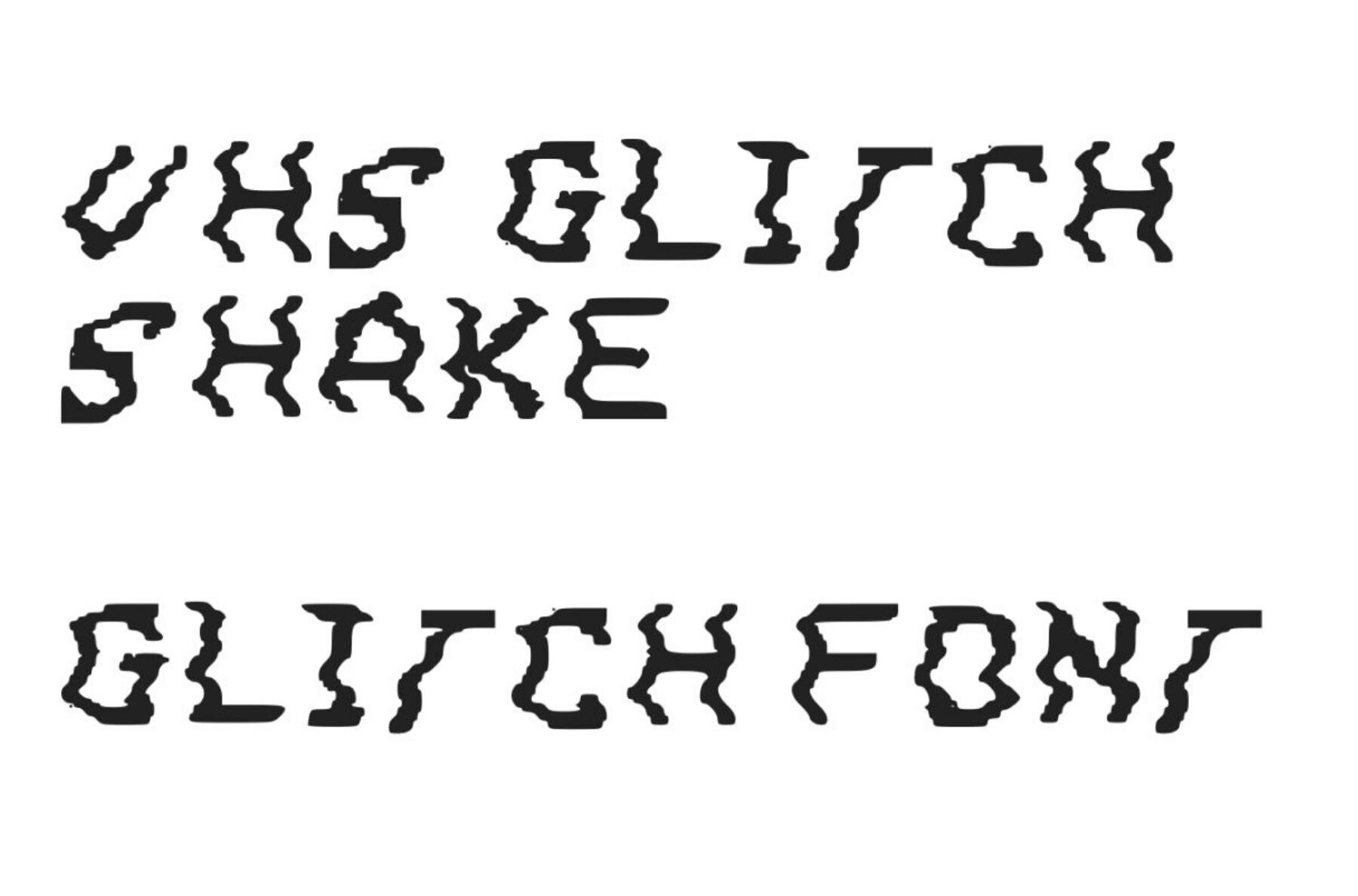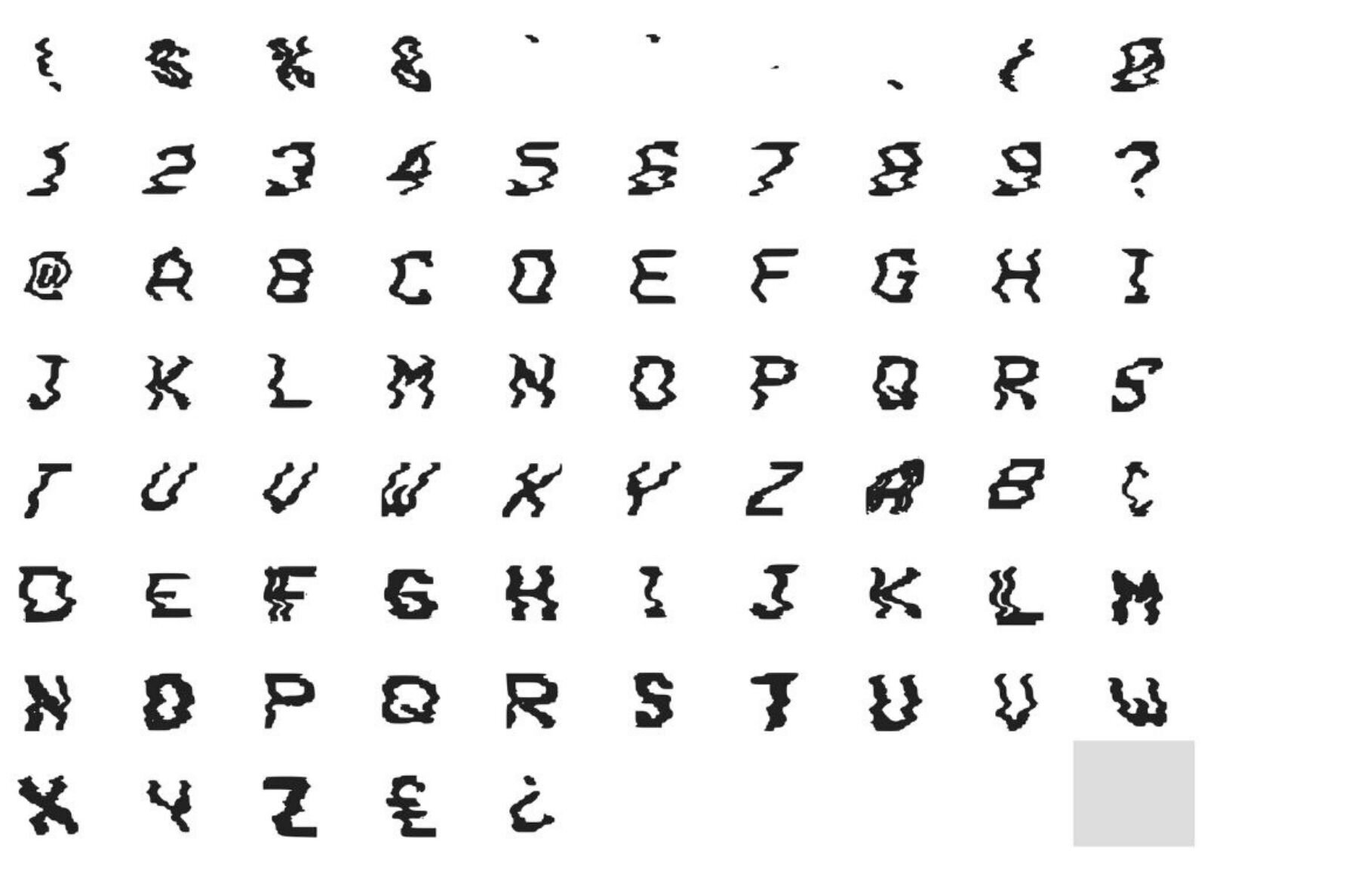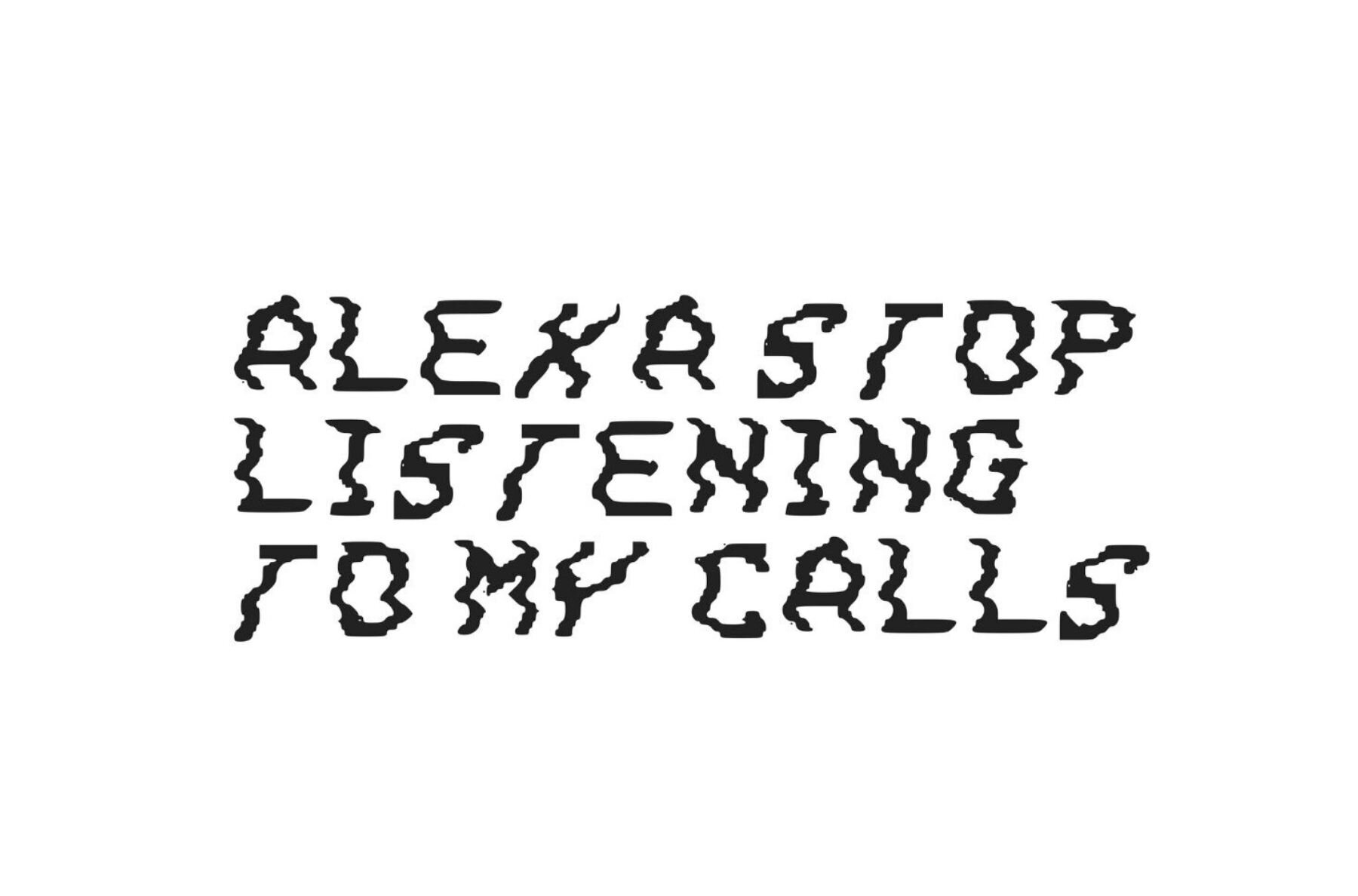
VHS Glitch Shake Font
VHS Glitch Shake
Discover the allure of VHS Glitch Shake, a captivating addition to the renowned glitch font series. This distinct typeface captures the essence of an era, echoing the visual noise of an old, malfunctioning TV set. Its unique distortions and deliberate imperfections make it perfect for anyone passionate about hacker aesthetics, digital art, or vintage tech. Unleash your creativity with VHS Glitch Shake and start crafting bold, disruptive designs that stand out. Perfect for projects requiring that nostalgic yet edgy touch.VHS Glitch Shake: Embrace Retro Vibes